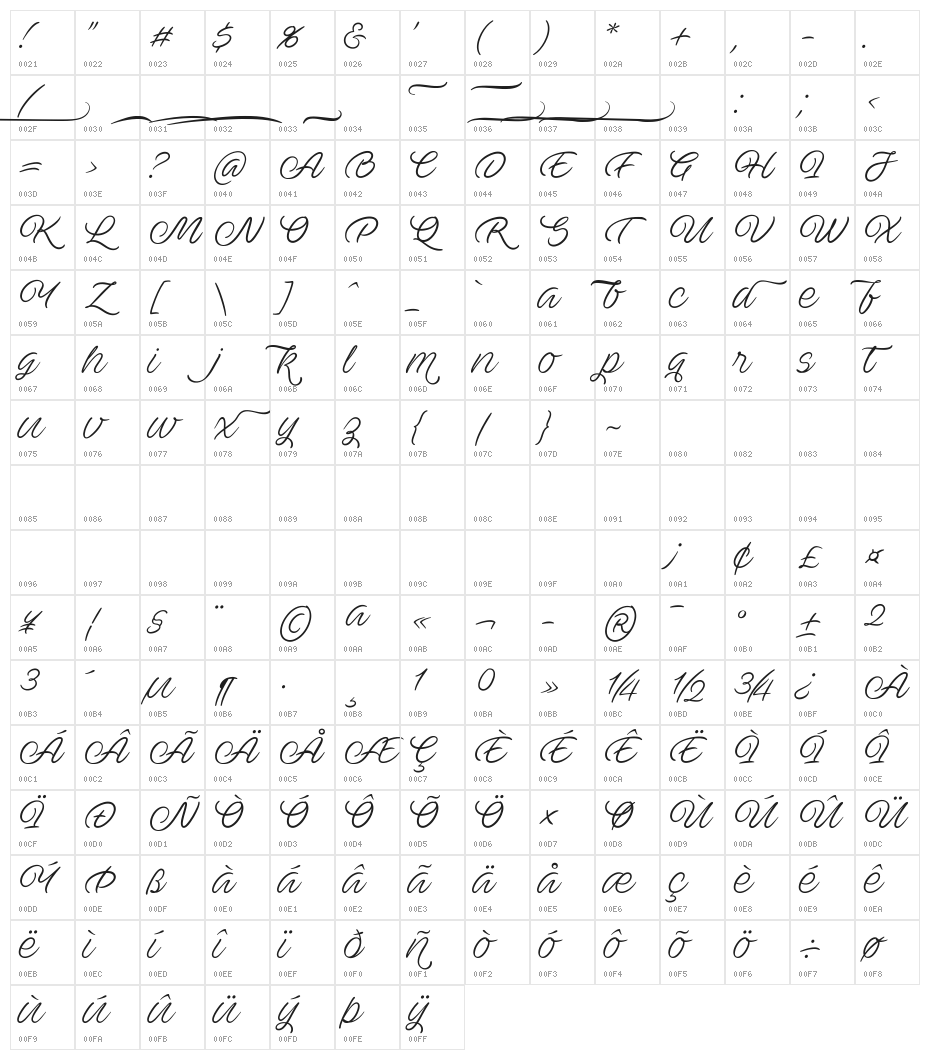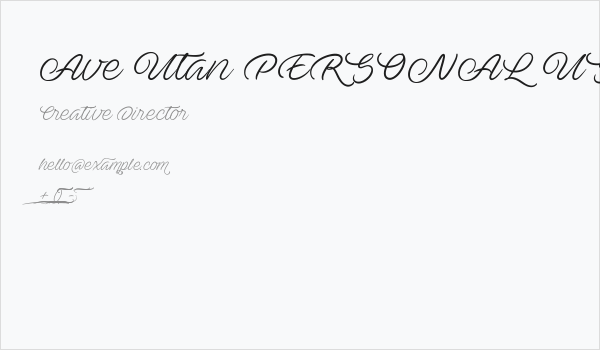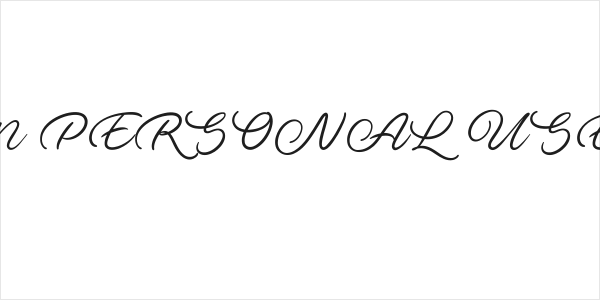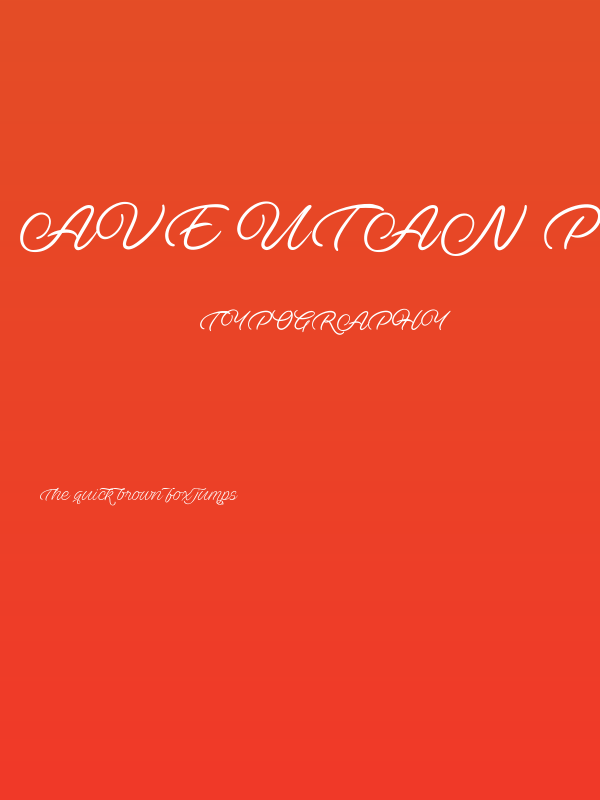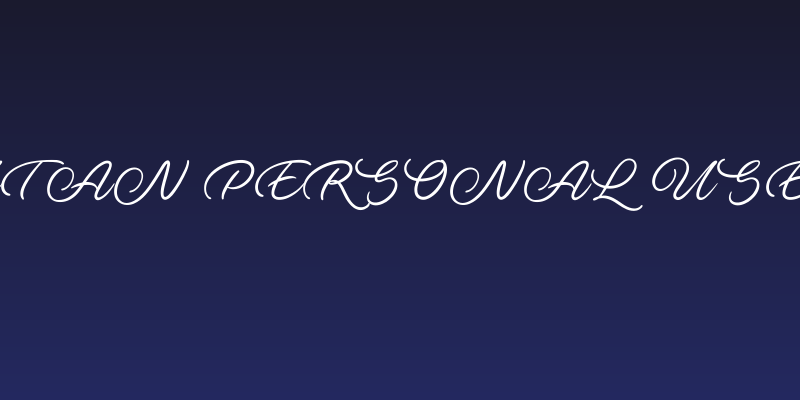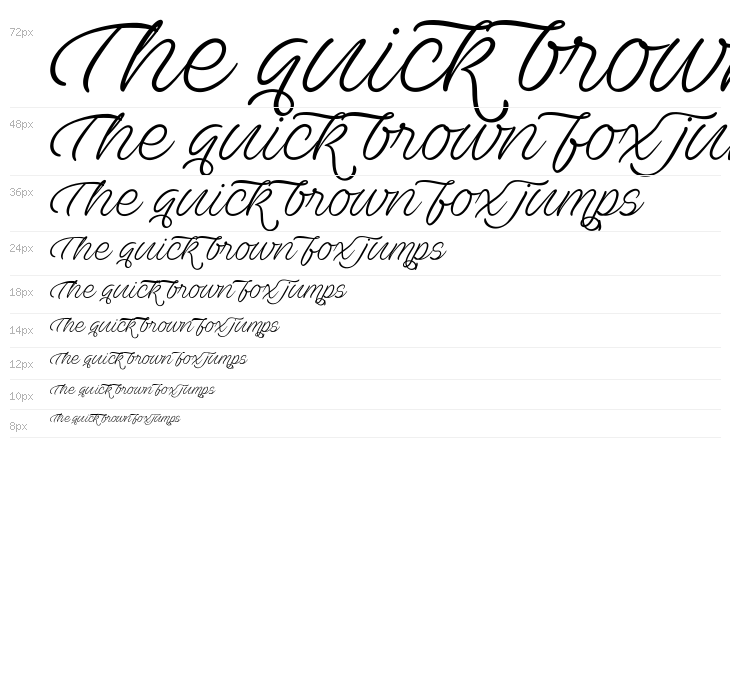
Ave Utan PERSONAL USE ONLY Font
Ave Utan PERSONAL USE ONLY Description
This font features an elegant and flowing script style, characterized by its graceful curves and loops. The uppercase letters are ornate, with sweeping lines that extend beyond the baseline, giving a sense of movement and fluidity. The lowercase letters maintain this fluidity, with a slightly more restrained design that ensures readability. The numerals and special characters are consistent with the overall style, incorporating similar curves and embellishments. This font exudes a sense of sophistication and is ideal for projects that require a touch of elegance and formality.
Overall StyleElegant, Formal
Use CaseInvitations, Branding, Decorative text
Proposed ProjectsWedding invitations, elegant branding, formal event programs, and luxury product packaging.